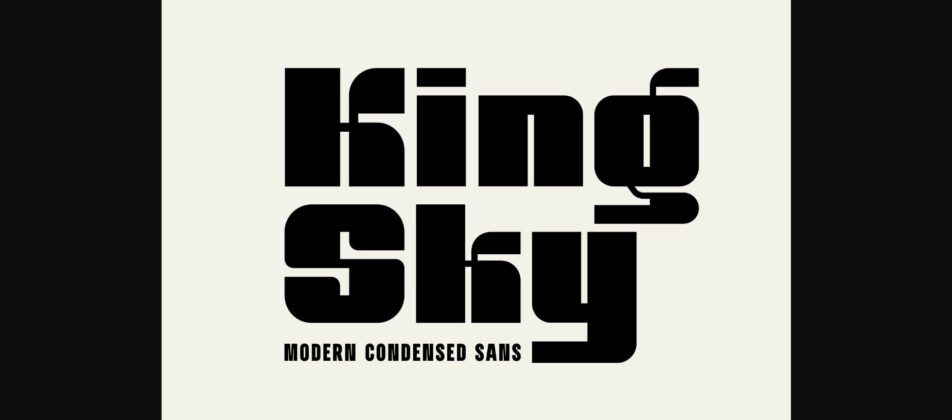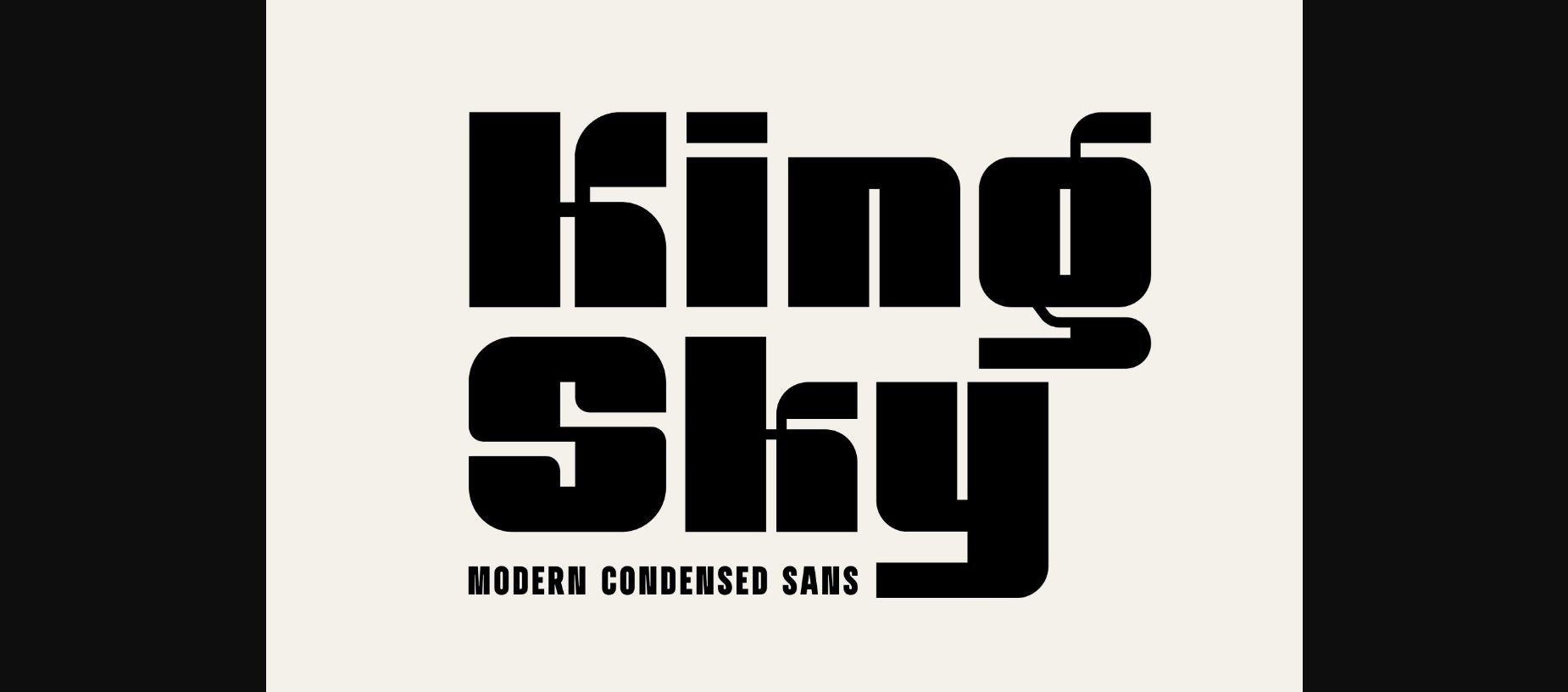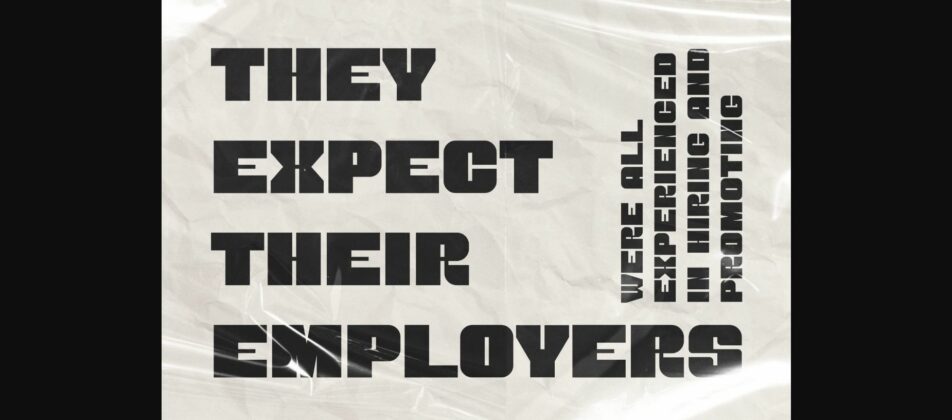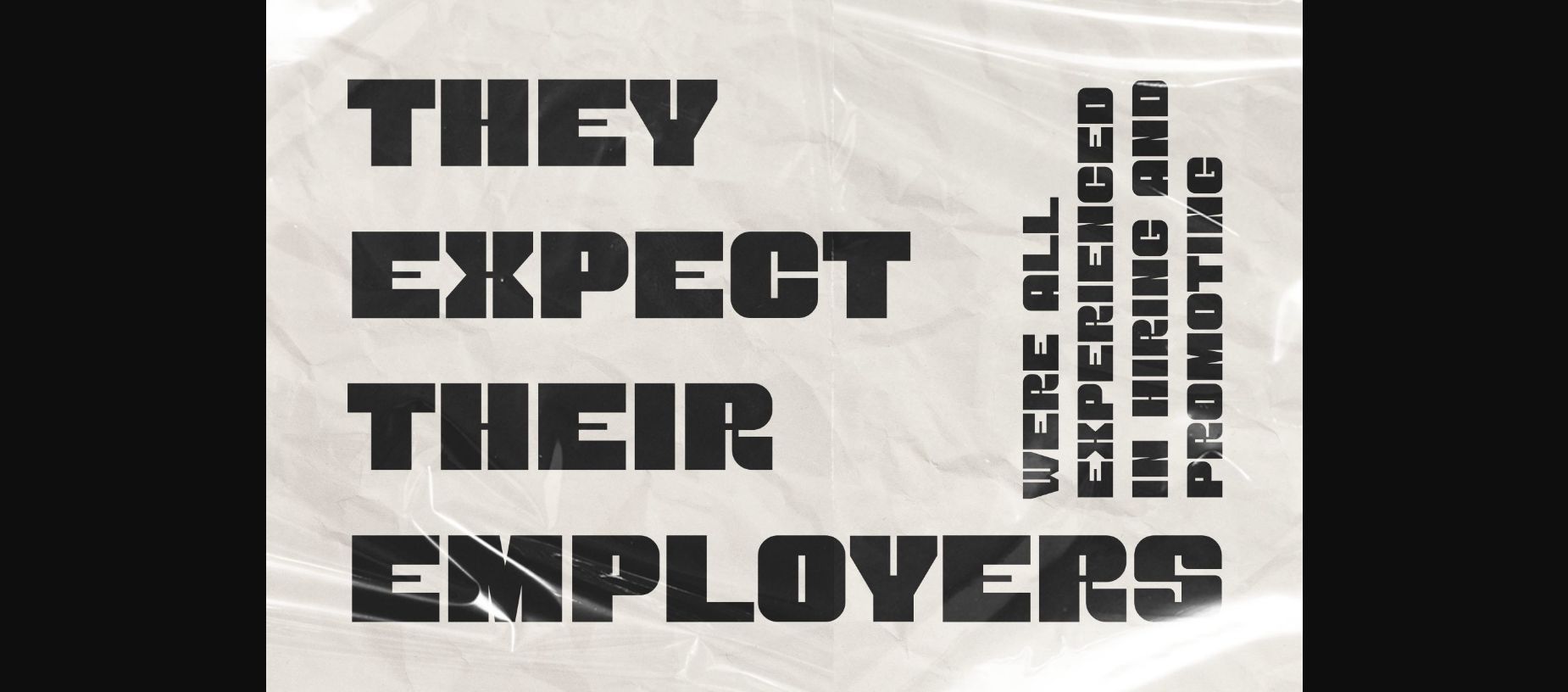
About King Sky Font
King Sky is a contemporary condensed sans serif font that exudes boldness and sophistication. With its sleek and streamlined letterforms, King Sky captures a modern aesthetic that is perfect for conveying a sense of confidence and style. This versatile typeface is ideal for headlines, titles, and branding, offering a distinctive and impactful look while maintaining excellent legibility. Whether used in print or digital media, King Sky adds a touch of elegance and modernity to any design project.